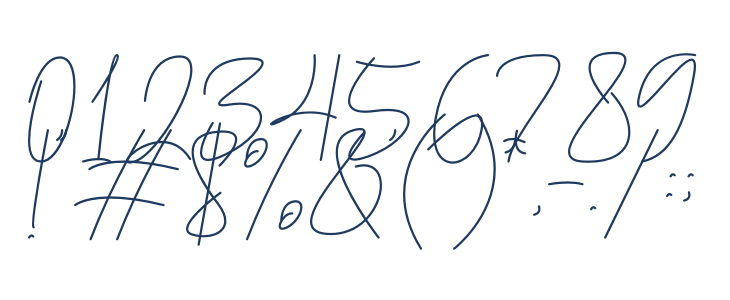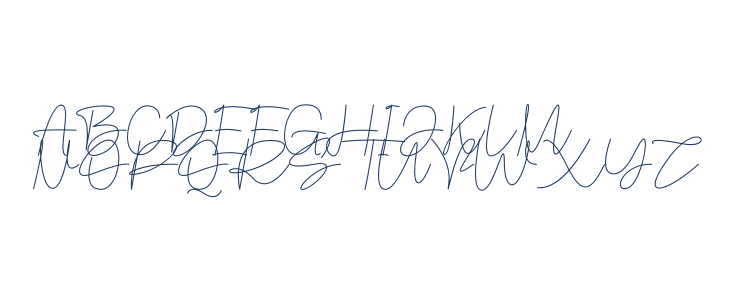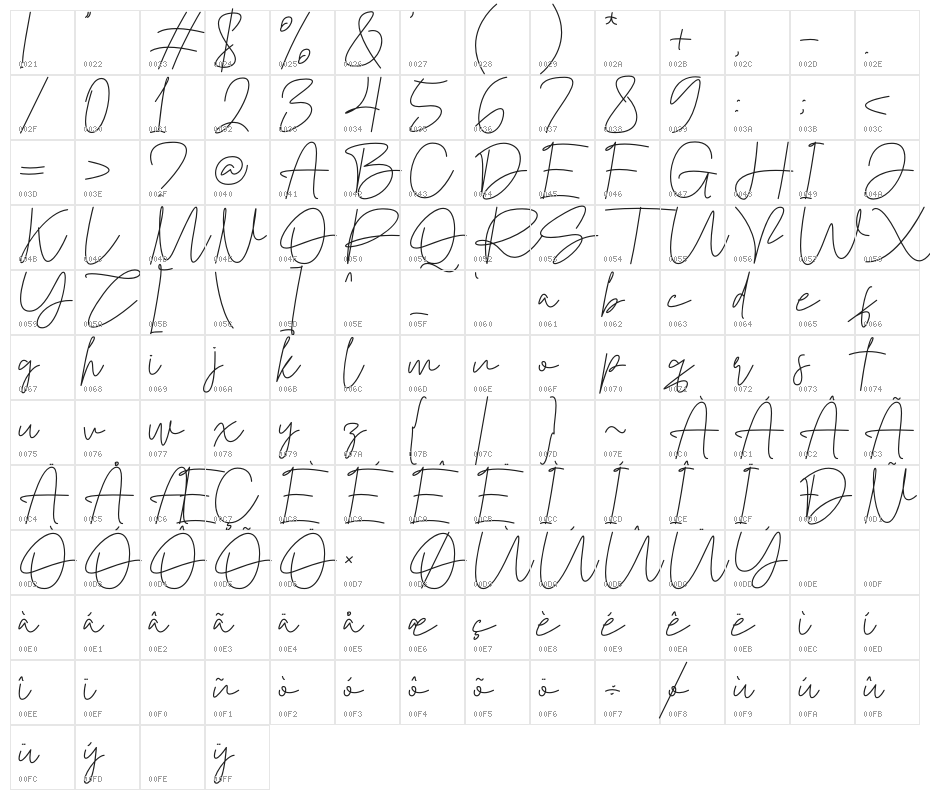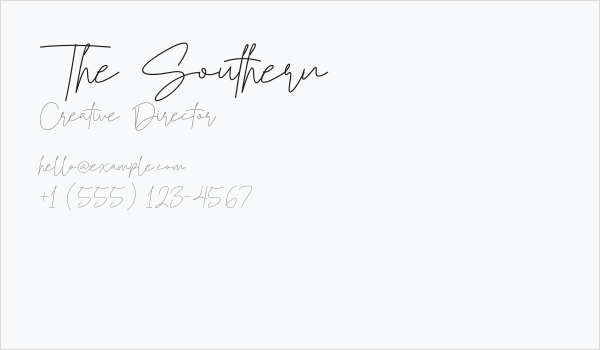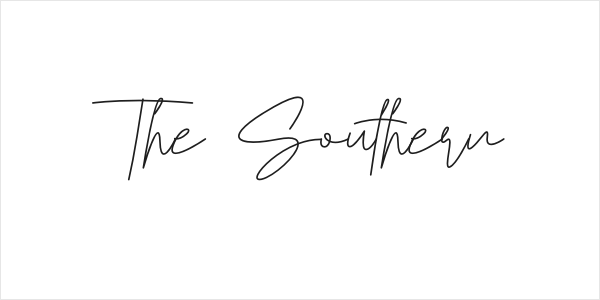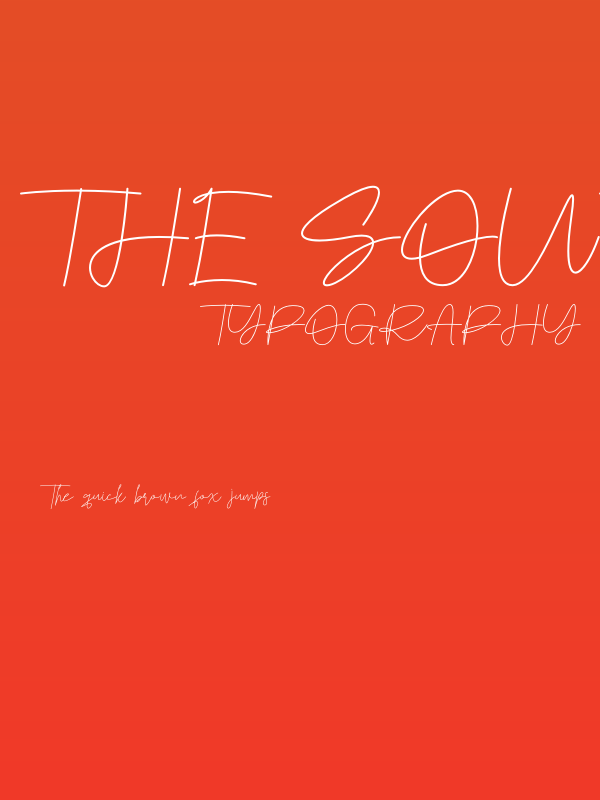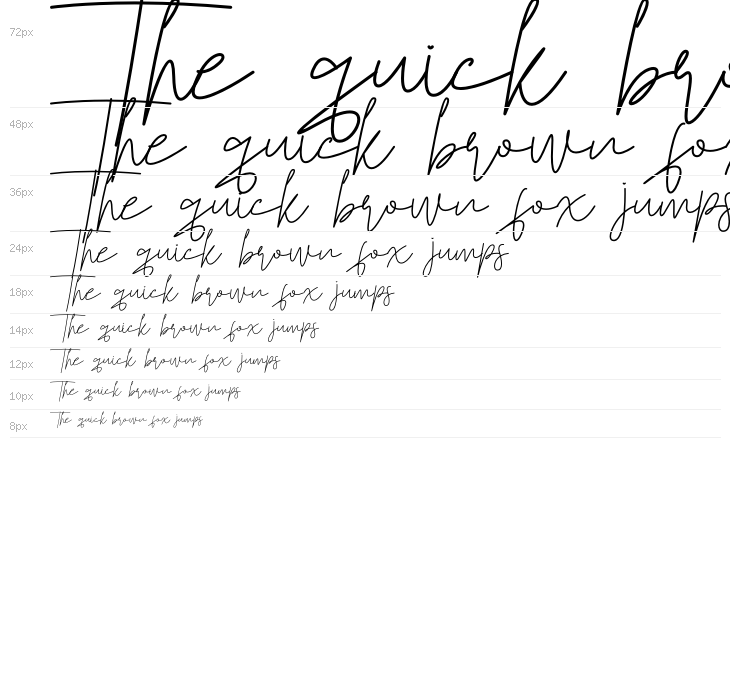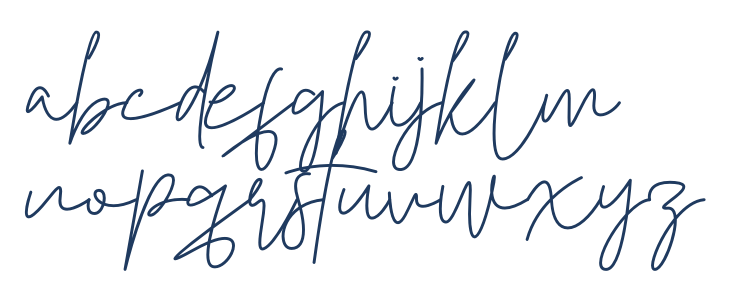
The Southern Font
A loose, flowing handwritten script with tall ascenders and descenders, featuring thin, consistent strokes and a casual, organic appearance. The characters are slightly slanted and connected in a natural, cursive style, evoking a personal and informal feel.
| Overall Style | Casual, Decorative, Modern |
| Use Case | Logos, Headlines, Invitations, Social media posts |
| Proposed Projects | Greeting cards, personal branding, invitations, quotes, social media graphics. |